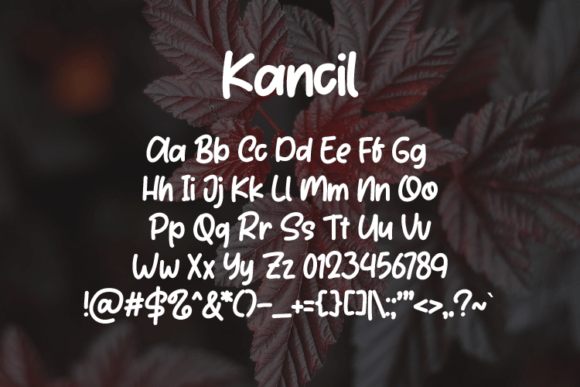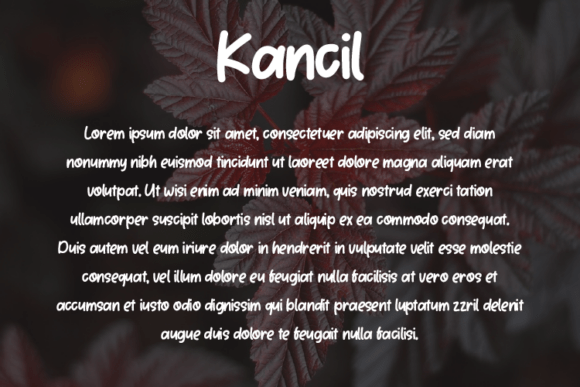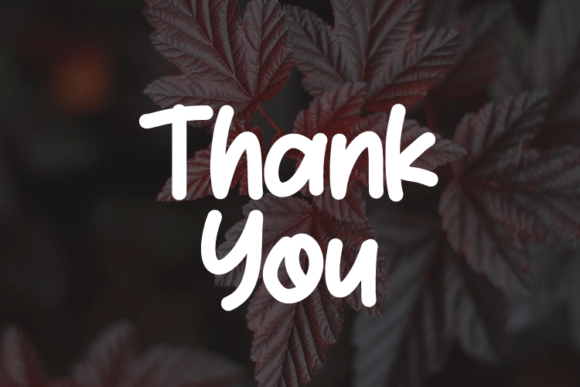
Introduction to Kancil Font
Kancil is a friendly, bold, and casual handwritten display font.
Its rounded, substantial letterforms and slightly uneven, bouncy baseline give it an immediate sense of cheerfulness and handmade charm This highly legible font is perfect for children’s products, playful branding, casual apparel, social media quotes, and any project that needs a strong, clear, and inviting personal touch.